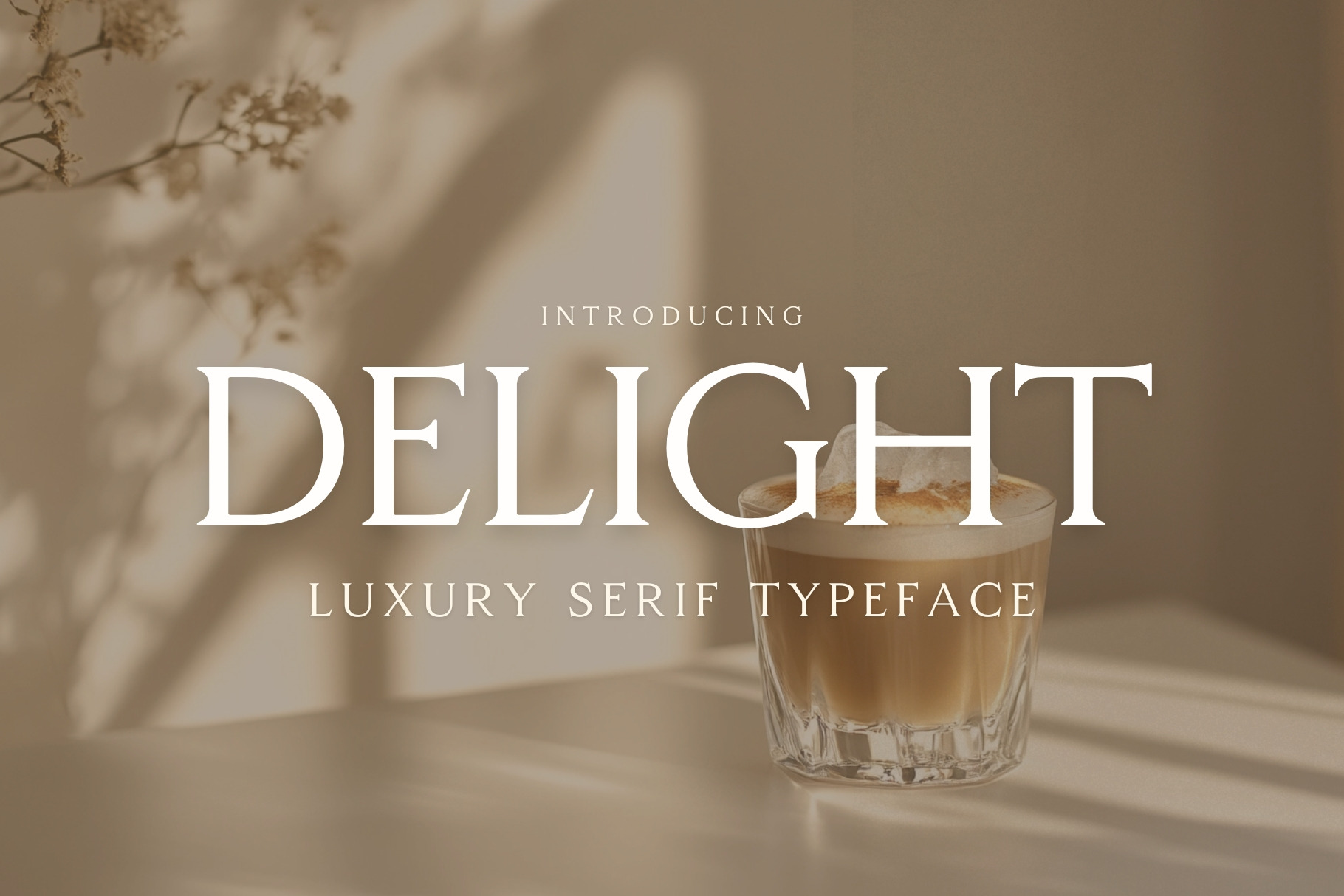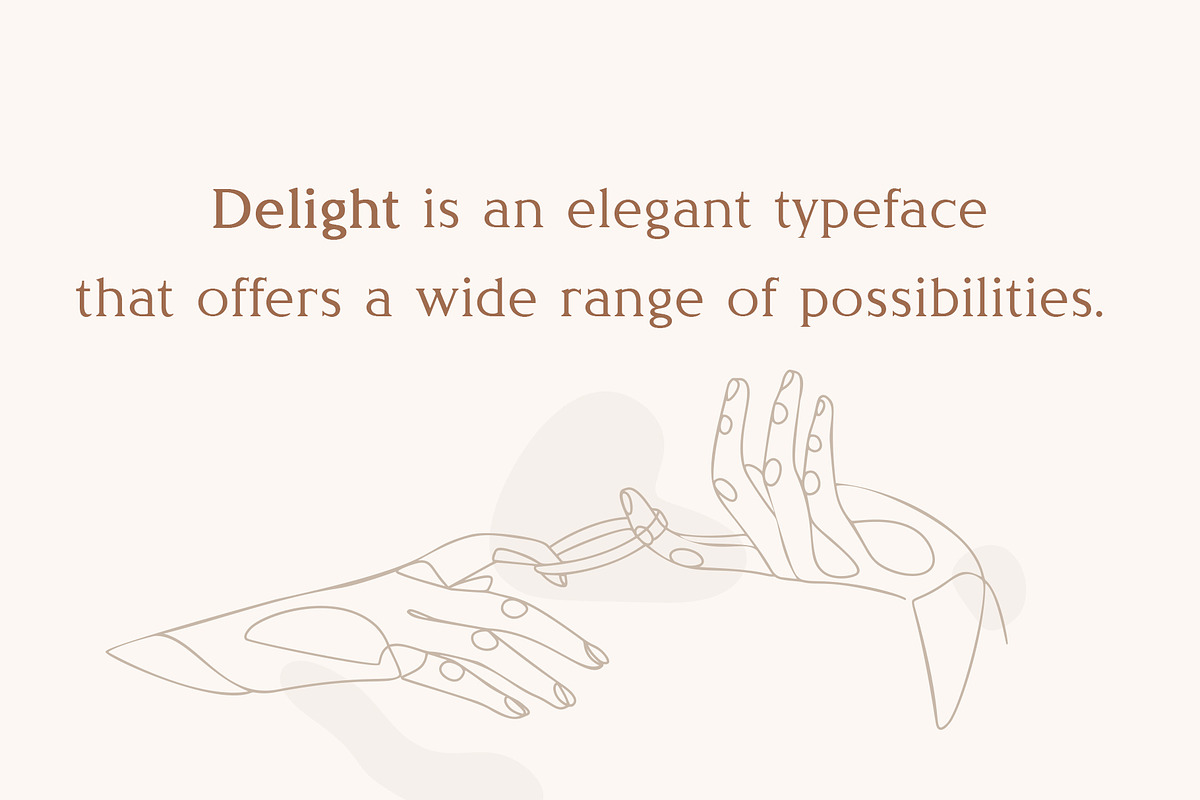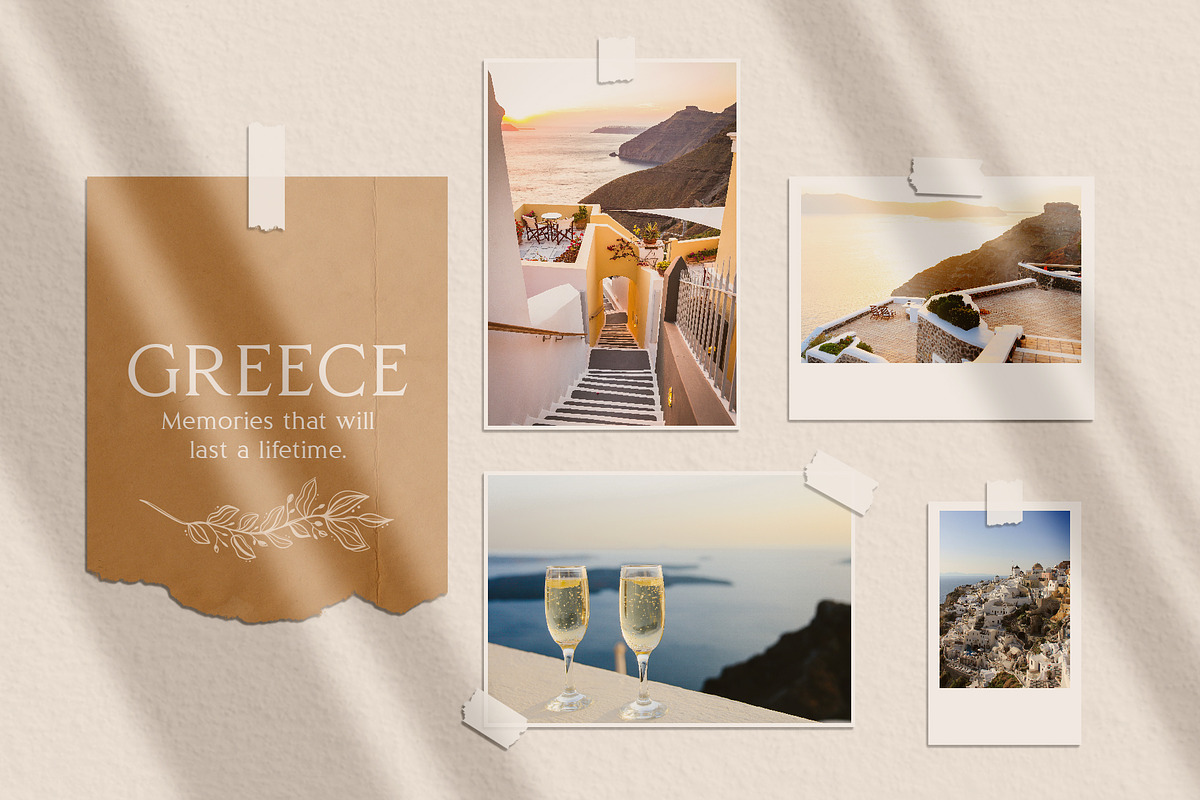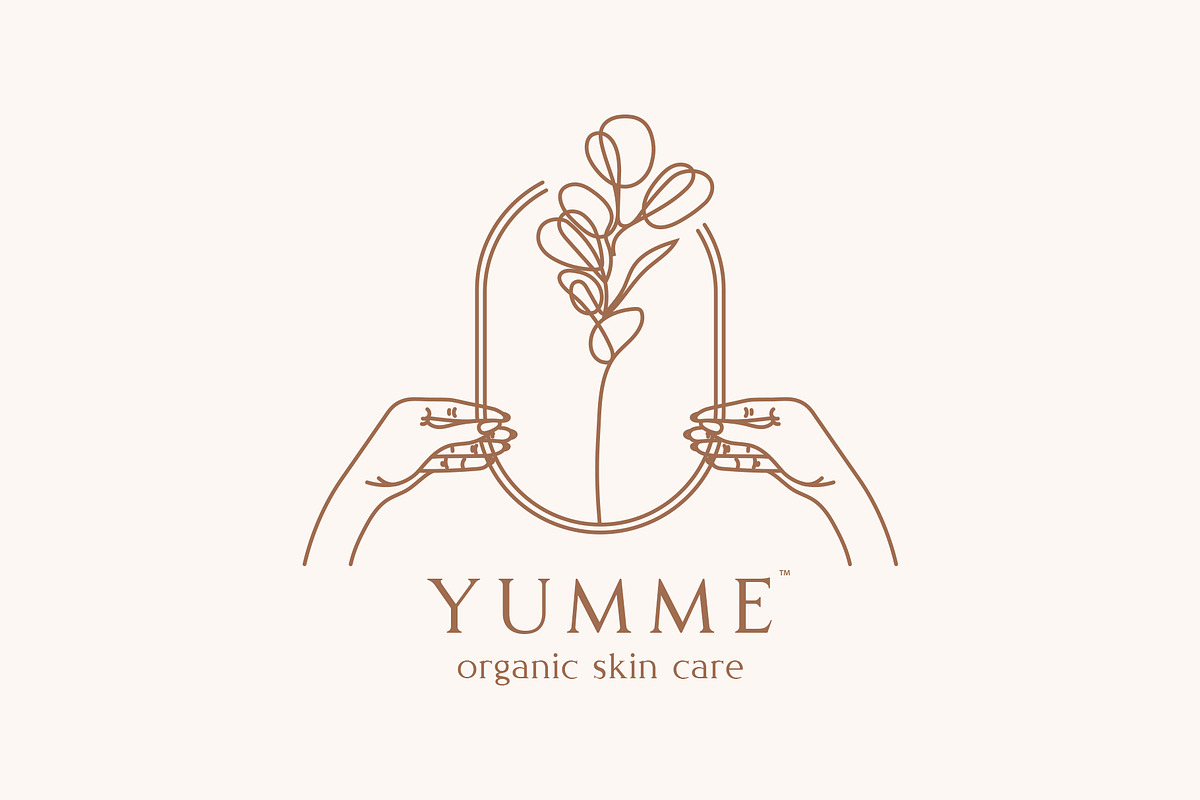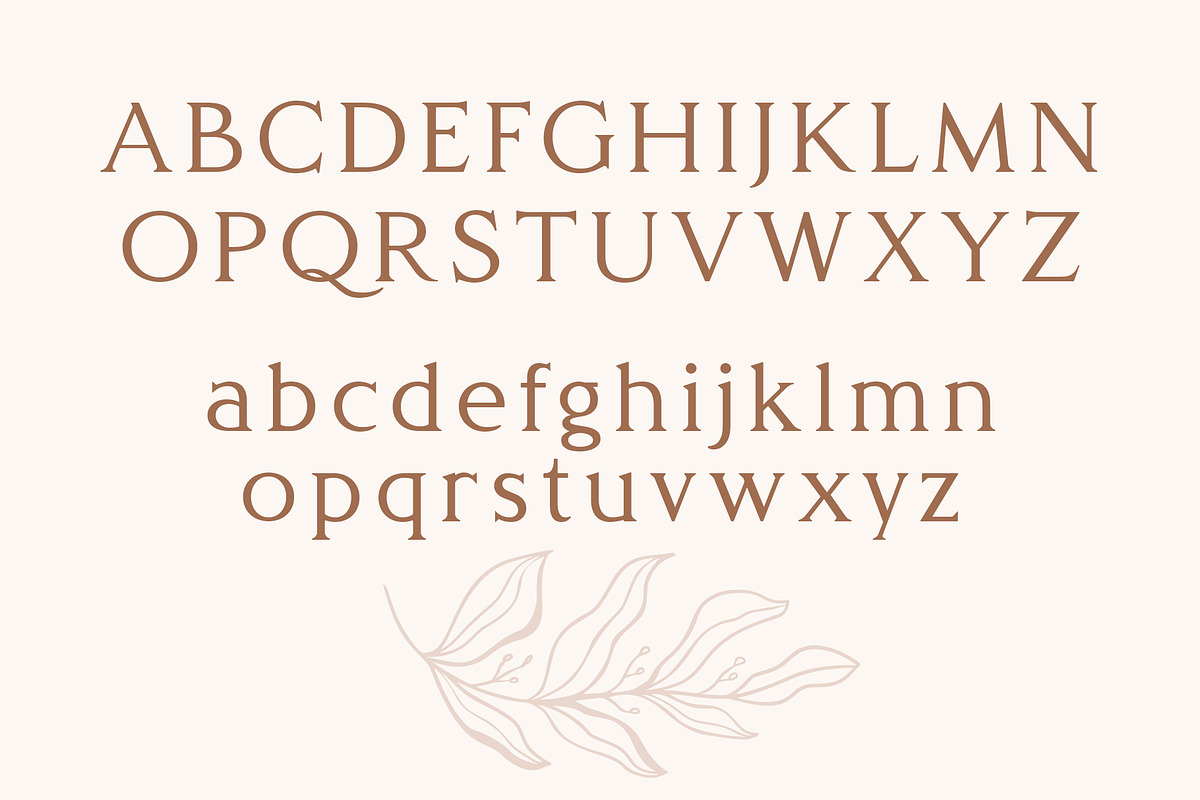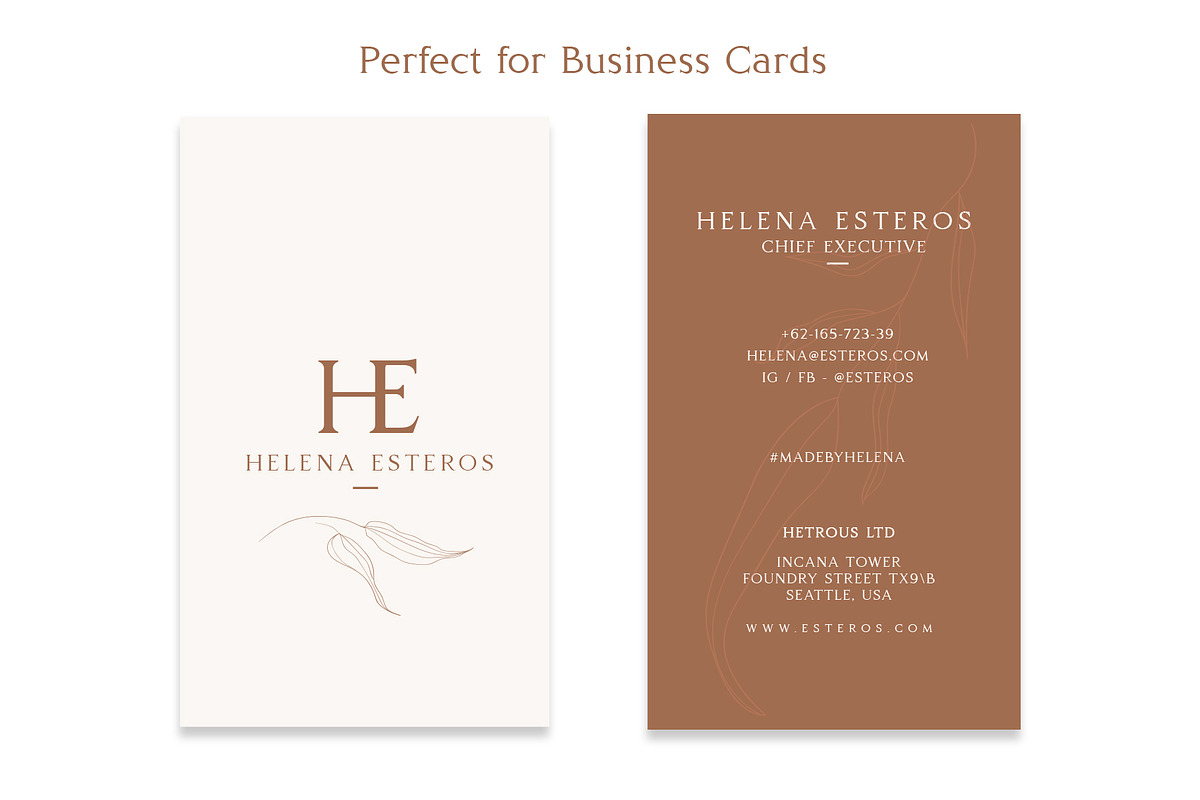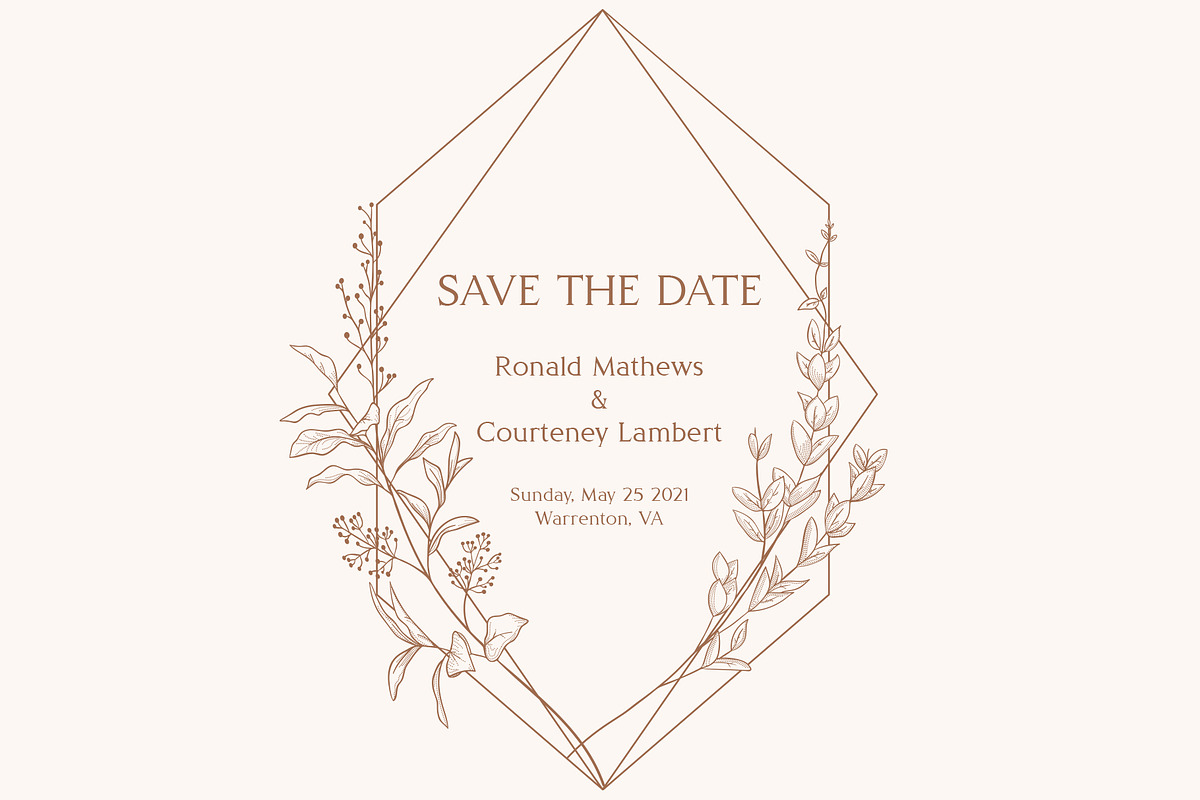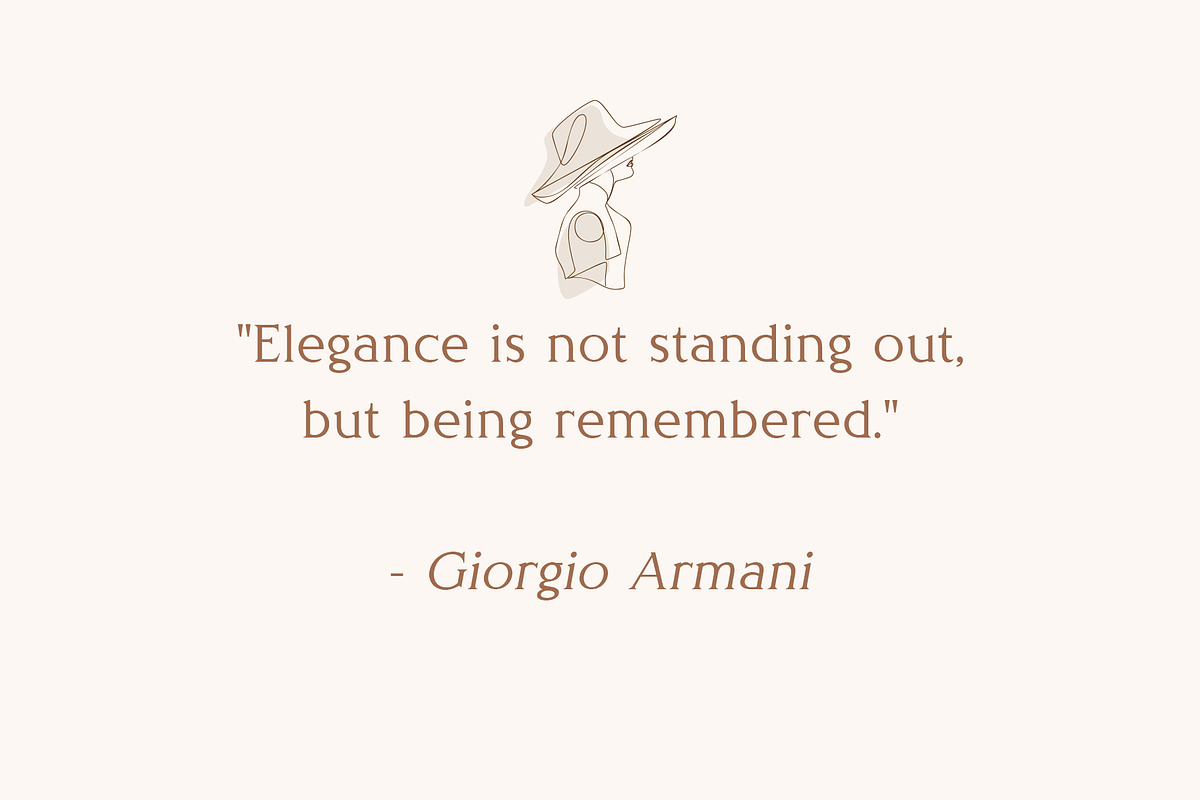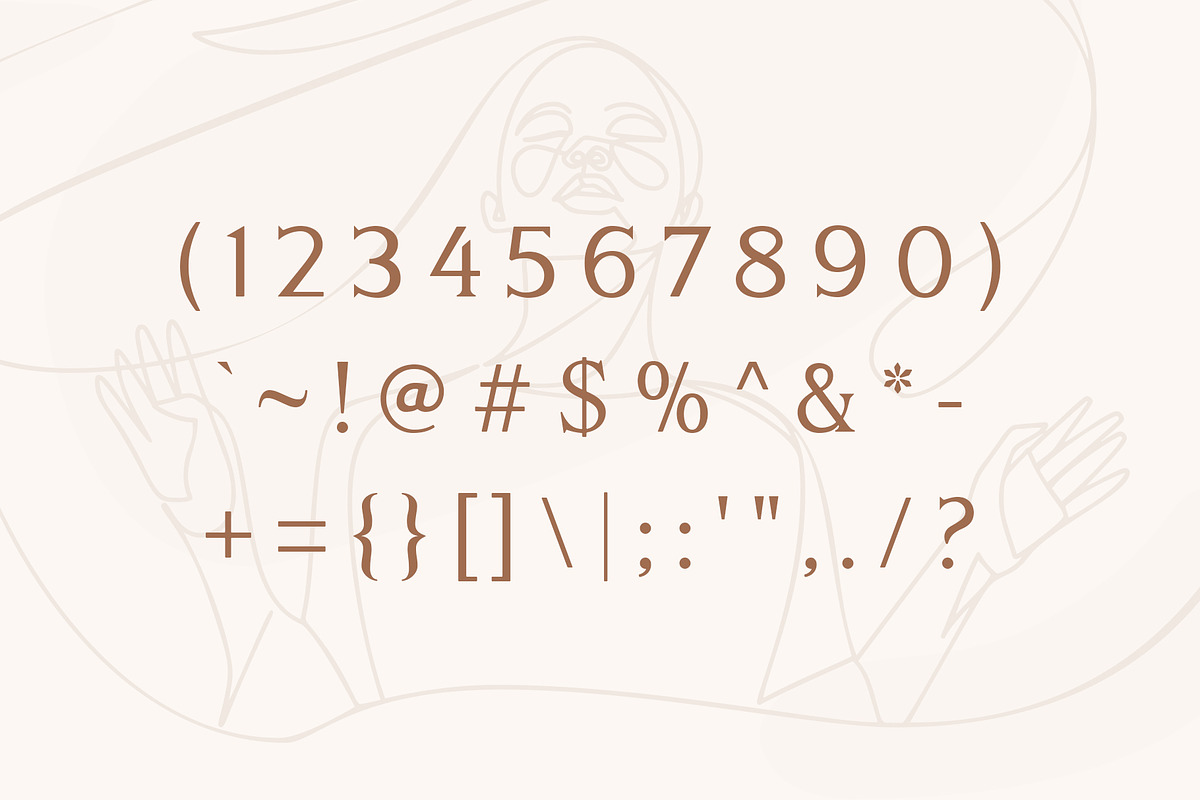
Delight - Luxury Serif Typeface
Delight is an elegant serif font that offers a wide range of possibilities. The typeface was built by fusing geometry and optical balance together. The end result is a timeless typeface that oozes class.
Delight is perfect for producing decorative greeting cards, book covers, quotes, posters, logos, business cards, wedding designs, packaging, and much more.
- Upper Case & Lowercase